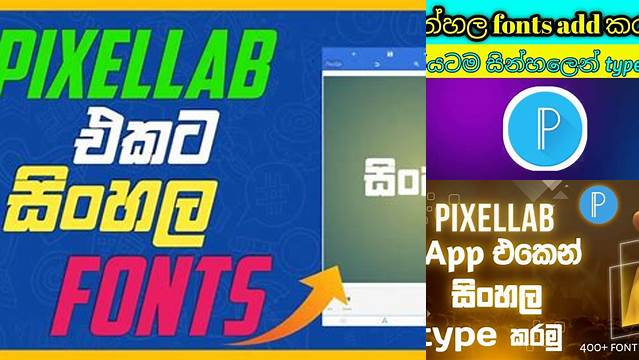
Best Sinhala Fonts For PixelLab: A Comprehensive Guide
Hey guys! So you're looking to jazz up your PixelLab designs with some awesome Sinhala fonts, right? You've come to the right place! Finding the perfect font can seriously elevate your work, making it more eye-catching and professional. In this guide, we'll dive deep into the world of Sinhala fonts compatible with PixelLab, covering everything from where to find them to how to install and use them. Get ready to transform your text game!
H3: Troubleshooting Common Installation Issues
Sometimes, things don't go as smoothly as planned. Don’t worry though, it’s pretty common. Here are a few troubleshooting tips for installing Sinhala fonts in PixelLab. If your font doesn’t appear in PixelLab after installation, double-check to make sure you've installed the correct font files (TTF or OTF). Check that you’ve extracted the font files from the ZIP archive correctly. Make sure you are looking in the right folder for the font files when adding them to PixelLab. Sometimes, restarting your PixelLab app or your device can help. Close the app, reopen it, or even restart your phone. Sometimes, fonts might have compatibility issues. Try different Sinhala fonts to see if the problem lies with a specific font. Make sure your version of PixelLab is up-to-date. Older versions might have font compatibility issues. Double-check the file name of your font and ensure there are no special characters or errors in the naming that could cause problems with the font's availability. If you're still facing issues, there might be issues with PixelLab itself or the font file itself. Consider looking for alternative fonts, or searching for help online on the PixelLab community. With a bit of patience and these troubleshooting tips, you should be able to install your Sinhala fonts in PixelLab without any issues! Keep in mind that the more you work with fonts, the more you’ll get used to the process, and the smoother things will become.
H2: Choosing the Right Sinhala Font: Design Tips and Tricks
Alright, you've got your Sinhala fonts installed in PixelLab, but now comes the fun part: actually choosing the right font for your project! Choosing the right font can be the difference between a design that looks great and a design that's truly amazing. Consider the overall tone and style of your design. Are you going for a modern, clean look, or something more traditional? Some Sinhala fonts have elegant, classic looks while others are more playful and casual. Consider the readability. The readability of the font is super important. Make sure that your text is easy to read, especially at the sizes it will appear in your design. Pay attention to the weight and style of the font. Bold fonts are good for headlines or emphasis, while lighter fonts can be good for body text.
Think about the target audience. Who are you designing for? If you're designing for a specific cultural group, a font that resonates with that audience can be a good idea. Try out different font combinations. Experiment with different Sinhala fonts along with any Latin fonts you might be using to see what combinations look the best. Also, ensure that the fonts are compatible. Check for the availability of different font styles. Some fonts come in multiple styles (bold, italic, regular, etc.), which can be really helpful for different design needs. When working on your designs, adjust the text size and spacing. Play with the letter spacing, line spacing, and text size to make the text visually appealing and easy to read. Make sure that the font is legible on various backgrounds. Check how the font looks against different background colors and images to ensure it’s readable. Try using a contrast that is strong. Keep practicing, and pay attention to what works and what doesn't.
H3: Font Pairing: Combining Sinhala and English Fonts
One of the best design skills is knowing how to pair fonts, especially when working with multiple languages like Sinhala and English. Here are a few tips for combining Sinhala and English fonts in your designs to create visually pleasing and functional typography. First, you want to match the mood. Choose English fonts that have a similar tone and style to your Sinhala fonts. If you have a traditional Sinhala font, consider a classic English font like Times New Roman. For a more modern Sinhala font, you can use a sans-serif English font like Open Sans or Lato. Ensure that both fonts have good readability. This means that they're easy to read at different sizes and on different backgrounds.
Contrast is key. When pairing fonts, use a bit of contrast. Use a bold Sinhala font for headlines and a lighter English font for body text. This will help to create visual interest and make the text easier to scan. Consider font size. Adjust the size of the fonts to create a visual hierarchy. You can use the Sinhala font in a slightly larger size for headlines to give them more emphasis. Make sure to check for any character issues. Some fonts might not display Sinhala characters correctly. Similarly, make sure the English font supports any special characters. Consider the spacing. Pay attention to the letter spacing (kerning) and line spacing (leading) between the text. Make sure that the text is readable and well-spaced. Test the fonts on different backgrounds. Try out your font combination on different backgrounds. You should make sure that the fonts are still legible. Keep it consistent across all your designs to maintain a uniform look. Lastly, use a font that offers multiple weights and styles so that you have more flexibility. By experimenting and practicing, you will get a better sense of what works. Good font pairings can really make a difference, so put in the time to experiment.
H2: Ensuring Sinhala Font Compatibility in PixelLab
So, you’ve got your fonts, installed them, and are ready to go. But, what happens if your Sinhala fonts don’t display correctly in PixelLab? Font compatibility issues can be frustrating, but there are several things you can do to ensure that your Sinhala fonts work flawlessly. One of the primary things you want to look at is the font format. PixelLab typically supports TTF (TrueType Font) and OTF (OpenType Font) formats. If your font is in a different format, it might not work. Make sure that you’ve downloaded the correct font file and that the format is compatible.
Check for font encoding issues. Sinhala fonts, like those in other languages, depend on correct character encoding. Ensure your font is encoded correctly to display Sinhala characters properly. Some fonts might not support all the Sinhala characters. This can happen if the font is not completely designed to include all necessary glyphs. Before investing a lot of time in a font, ensure that it has the complete set of Sinhala characters that you need. You can check this by typing in a few phrases and checking whether all the letters appear correctly. Try using different versions of the font. Sometimes, a newer version of the font might have improved compatibility with the apps. Double-check to ensure that your PixelLab app is up-to-date. Older versions might have problems with newer fonts or might not fully support Sinhala fonts. Clear the cache. Try clearing the app's cache to remove old font information. If the font still isn't working, look for alternative fonts. There might be other Sinhala fonts that are more compatible with PixelLab. You can also try different devices or operating systems. Sometimes, font compatibility depends on the device or OS. With a bit of attention to these details, you can drastically improve your chances of getting your Sinhala fonts to display flawlessly in PixelLab. Patience and a willingness to experiment are your best tools for ensuring font compatibility.
H3: Dealing with Missing or Incorrect Sinhala Characters
So, you've loaded up your Sinhala fonts in PixelLab, but some characters are missing or not showing up correctly. This is a common problem, but there are definitely some solutions. One of the first things to check is the font’s completeness. Not all Sinhala fonts include all the characters. Make sure the font has all the characters you need. Try using a different font. Not all fonts are created equal. If one font has missing characters, try another. Ensure your text is entered correctly. Make sure that the Sinhala characters are typed or pasted correctly. Sometimes, small errors can mess things up. Check for encoding issues. Fonts use encodings to display characters. Ensure the font encoding matches the encoding used by the app and your device. Check the system settings. In your device’s settings, ensure the Sinhala language support is enabled. Clear your app's cache. This helps to remove old font information. Try updating PixelLab. Newer versions usually have improved font support. Try using a different device. If you are using multiple devices, some devices support fonts better than others. If the issue is persistent, you might need to search for updated versions of the font. If the font is still not working, it is possible the font might not be suitable. By trying all the steps, you'll be able to troubleshoot and hopefully get your Sinhala characters showing correctly!
H2: Advanced Tips for PixelLab Users: Font Customization
Alright, you're now a PixelLab pro, and you’re ready to take your design game to the next level! Here are some advanced tips to help you customize your fonts and create even more stunning visuals. One of the first things to do is to adjust your text's color and gradient. PixelLab allows you to set a custom color or create a gradient for your text. This allows you to match your font to the overall design. Experiment with different colors to see what best fits your design. You can also customize the text’s size and spacing. By adjusting the letter spacing (kerning), line spacing (leading), and word spacing, you can make your text more readable and visually appealing. Next is to apply text effects. PixelLab offers a range of text effects, like shadows, strokes, and 3D effects, to make your text stand out. Experiment with these effects to find what works best for your design.
Use masking. PixelLab allows you to mask text with images or shapes. This can create a very cool visual effect, giving your text a unique appearance. Try adding outlines to your text. Outlines can help to make text stand out against any background. Experiment with the thickness and color of the outlines. PixelLab also lets you create text curves. This allows you to shape the text, which is perfect for logos or designs that require text to follow a specific curve. Use blending modes. Blending modes let you merge your text with the background. Experiment with different blending modes to create a unique effect. One of the best things is to add textures. PixelLab lets you add textures to your text. This can create a very realistic look. Create your own styles. Save your favorite text styles so you can easily use them in future projects. By using these advanced tips, you can create unique designs that impress anyone who sees them.
H3: Creating Stunning Typography Effects in PixelLab
Now that you're comfortable with PixelLab, let’s dig into how to create some stunning typography effects. First, let’s focus on the shadow and outline effects. PixelLab lets you add both shadows and outlines to your text. Use shadows to create depth and dimension, and use outlines to make your text pop. Experiment with different colors and thicknesses to get the right look. Next, explore the 3D text features. PixelLab’s 3D text feature lets you add depth and perspective. You can adjust the extrusion depth, perspective angle, and other properties to get the 3D effect. Text masking is also a powerful technique. You can mask your text with images or shapes. This can create unique visual effects, like a text that appears to be filled with an image or texture.
Let's get creative with gradients. Gradients are a great way to add color variation to your text. Experiment with different gradient styles. Use different colors and gradients to make your text more visually interesting. Don't forget about textures. PixelLab lets you add textures to your text. This can give your text a more realistic look, like wood or metal. Experiment with different textures to see what works best for your design. You can also create curved text. PixelLab allows you to curve your text, which is ideal for logos and designs that require text to follow a specific shape. Adjust the curve to make your text fit your design. The best part is to save and reuse styles. Once you create a text effect that you like, save it as a style to use later. By combining all these techniques, you can create beautiful and unique typography effects that will make your designs stand out. Have fun, experiment, and don't be afraid to try new things.
H2: Finding and Utilizing Sinhala Unicode Fonts in PixelLab
Let's delve into a super important topic: Sinhala Unicode fonts. What are they? They are fonts specifically designed to support the Sinhala language using Unicode encoding. This is super important for consistency. Using Unicode fonts guarantees that your text displays correctly across various devices. Without it, you might see gibberish, especially on older devices. So, how do you find and use them in PixelLab? The process is very similar to installing any other font. Download Sinhala Unicode fonts from reputable sources. Websites that specialize in fonts are the best place to start. Usually, they will have a section specifically for Sinhala fonts. Make sure your downloads are in the TTF or OTF formats. Open your PixelLab app. Go to the font section, usually found under the 'A' icon. Select the 'My Fonts' or 'Downloaded' tab and add your downloaded font. Locate the font files in your device’s storage. Select the font and add it to PixelLab. Now, when you add text, choose the Sinhala Unicode font you just installed. You should now see your Sinhala text displayed correctly.
Unicode fonts are designed to be widely compatible. However, make sure the text you are using is also encoded in Unicode. If the text is not encoded properly, it might still not display correctly. You may need to convert your text to Unicode, which is a common task when working with older text formats. Test your design across different devices. Check how the text appears on various devices and platforms. Unicode fonts are designed to display consistently, but it’s always good to check to make sure. With a little knowledge, you can ensure that your Sinhala text is always displayed correctly.
H3: Common Issues with Sinhala Unicode Fonts and Their Solutions
Even with Unicode fonts, there can be problems. Here’s how to troubleshoot them. One common issue is improper character rendering. Ensure your text is encoded in Unicode. Sometimes, old or incompatible encoding can cause display issues. You might need to convert your text to Unicode. Check the font. Not all Sinhala fonts are created equal. Some might be designed with more characters or better rendering than others. Try different fonts. If one font doesn't work, try another. Check for missing glyphs. Make sure the font has all the characters you need. Type in a few phrases and check whether the characters display correctly. It is possible that some font doesn't have the full set of characters. Update PixelLab. Sometimes, updating PixelLab can fix font-related issues. Older versions may not fully support newer fonts. Check your device settings. Make sure your device supports Sinhala and that the correct language settings are enabled. Restart PixelLab. Sometimes, restarting the app can clear up minor glitches. Clear cache. Clearing PixelLab's cache can help resolve display issues. Test on different devices. See if the issue persists on other devices or platforms. It can sometimes be a device-specific problem. If you're still running into issues, consider seeking help from the PixelLab community or online forums. Often, other users have faced similar problems and can provide solutions. By following these tips, you can identify and solve many common problems.
H2: Tips for Using Sinhala Fonts in Different Design Projects
Now that you're equipped with the knowledge of Sinhala fonts for PixelLab, let’s look at how you can use these fonts in different design projects. Consider what kind of projects are you planning to make. Are you creating social media graphics, posters, logos, or something else? For social media graphics, readability is crucial. Choose clear and readable fonts. Short and impactful text is best. On posters, you can use more decorative fonts for headlines. Ensure that the overall design is balanced. For logos, the font must align with your brand's identity. Consider the brand’s personality and values. Make sure that the font is suitable for both online and offline use.
For brochures, use a font that matches the brochure's style. Use fonts that are easy to read. Brochures need a good balance of text and visuals. Always consider the target audience. Knowing your audience helps you pick fonts that resonate with them. Experiment with various styles and layouts. Consider your text's hierarchy. Make sure that the most important text stands out. Always test your designs to see what works and what does not. Save your favorite fonts. Create a library of fonts that you can refer to whenever you are starting a new project. Get feedback on your designs. Ask friends, family, or colleagues for their feedback on your designs. The more you experiment, the more you'll learn!
H3: Designing Social Media Graphics with Sinhala Fonts
Social media is all about eye-catching visuals. Here’s how to design social media graphics using Sinhala fonts. First, ensure that you're using fonts that are easy to read. Avoid overly complex or decorative fonts that might be difficult to understand at small sizes. The font should complement the content. Make your headlines and key information big and clear. Use bold fonts for impact. Keep your text brief and punchy. Use short, attention-grabbing phrases. Use a font that matches your brand identity. Create a consistent look and feel across all of your graphics. Experiment with different layouts and designs. Play with different font sizes, colors, and backgrounds. Ensure that your text stands out against the background. Use contrasting colors and textures. Experiment with the background to see how it affects the text.
Use a visual hierarchy. Make the most important information stand out. Make sure that the text is clear and readable on mobile devices. The majority of social media users view posts on mobile devices. Try different font pairings to enhance your design. Choose fonts that complement each other. Use visuals that are eye-catching. Make sure that your graphics are consistent with your brand. This helps in building your brand recognition. Do not forget to check your graphics on different devices and platforms. Make sure your graphics look good on various screen sizes and social media platforms. Always save your graphics in the correct format. For social media, use formats like JPEG or PNG. By using these techniques, you can make some amazing social media graphics!
H2: Future of Sinhala Fonts in Digital Design: Trends and Predictions
What does the future hold for Sinhala fonts in digital design? The future looks bright, and here are some of the key trends and predictions. One of the biggest trends is greater font diversity. We can expect to see more Sinhala font styles to suit various design needs. Expect to see more integration with AI-powered tools. AI could play a significant role in font design, suggesting font pairings and helping designers. We will also see more focus on multilingual support. Designers are creating more fonts that support multiple languages. There will be improved font accessibility. Designers will make fonts that are easier to read and more inclusive. We'll also see more experimentation with variable fonts. Variable fonts allow designers to adjust font weights, widths, and styles.
We’ll see more font design with a focus on cultural identity. Designers are making fonts that celebrate culture and language. There is a strong focus on design for mobile devices. The growing use of mobile devices will push font design to make fonts look great on screens of all sizes. We will also see the growing role of augmented reality (AR) and virtual reality (VR). AR and VR will present exciting opportunities for the creation and use of 3D fonts. Collaboration will also play a big role. More designers will collaborate to create innovative Sinhala fonts. There is always more demand for customized Sinhala fonts. This is important because this means that designers and businesses need to design tailored fonts that reflect their unique brand. As the demand for digital content continues to grow, the role of Sinhala fonts will continue to expand. Experimenting and staying current is key for designers in the field.
H3: Emerging Font Design Techniques and Their Impact on Sinhala Fonts
Let’s dive into emerging font design techniques and their impact on Sinhala fonts. One emerging trend is the rise of variable fonts. Variable fonts allow for dynamic customization, letting designers create fonts that adapt. This opens up new possibilities for Sinhala fonts to fit various sizes. The increased focus on inclusivity is another key trend. Designers are creating more accessible and inclusive fonts, and we can expect more Sinhala fonts to be designed with different accessibility needs in mind. AI-powered font design is gaining momentum. AI can help designers with font creation and pairing, which can speed up the design process. We’ll see more use of 3D fonts. 3D fonts are becoming popular, especially in AR and VR applications. Expect to see more Sinhala fonts designed for 3D display. There's also an increasing focus on motion graphics. Motion graphics are becoming central in digital media. Sinhala fonts will need to be adaptable to these demands.
Another key trend is the personalization of fonts. Designers will focus on creating custom fonts for individual brands. The growth of micro-typography is essential. Micro-typography focuses on the details of font design, like kerning and spacing. Sinhala fonts can benefit from careful attention to micro-typography. There's a focus on the role of cultural context. Sinhala fonts will need to reflect the cultural values and historical design of the language. As technology advances, Sinhala fonts will evolve to meet the needs of digital design. Designers who stay ahead of these trends will be best-equipped to create innovative Sinhala fonts. Be ready for changes and be open to new techniques.
H2: Resources and Tools for Sinhala Font Designers and Users
For designers and users alike, having access to the right resources is essential for working with Sinhala fonts. Here’s a comprehensive guide to the best resources and tools available. If you are a font designer, start with font creation software. Programs such as Glyphs, FontLab, and Adobe Font Folio are great for creating and editing fonts. For users, there are websites that offer fonts. Websites like Google Fonts, Font Squirrel, and DaFont provide access to a wide variety of Sinhala fonts. Make sure you choose the right fonts. Select fonts that meet your needs. Check for licensing terms, font styles, and character support. Another thing you need is a font management tool. These tools help you organize, install, and manage your fonts on your computer. Font managers are also useful for managing different font versions and for activating/deactivating fonts.
If you need help with typography, you can find many typography guides. These guides offer helpful tips, like typography principles, best practices, and font pairing. If you’re having issues with Unicode, you should find a good Unicode editor. These tools can help you to edit, convert, and manage Unicode characters. Check the forums. Join design forums to connect with other designers and font users. Sharing experiences and knowledge is very important. Take courses. Enroll in design courses, whether online or in person. You can learn new skills and techniques to enhance your design work. Stay updated with the latest trends. Follow design blogs and websites that cover trends in font design. This helps you stay informed. Experiment with design tools. Many different design tools are available for you. Adobe Photoshop, Illustrator, and Canva are some of the popular design tools. By making use of all the resources, you can enhance your design work with Sinhala fonts.
H3: Essential Software and Websites for Sinhala Font Management
Managing Sinhala fonts can be made easy with the right software and websites. Here are some essential tools and resources to manage your fonts. First, we will look at the font management software. Programs like FontBase and NexusFont can help you organize, preview, and activate your fonts. This is especially handy when you're dealing with many fonts. Use font managers to install and manage fonts. This will help you avoid conflicts and maintain organized font libraries. Next is font editors. FontForge is a free, open-source font editor you can use to edit and create fonts. These tools are used for customizing Sinhala fonts. Now let's look at the font websites. Google Fonts, Font Squirrel, and DaFont offer a great selection of Sinhala fonts. You can find a wide variety of font styles and licenses. Make sure that you download fonts from reputable sites. Check the licenses. Before downloading, make sure the font license matches your usage. Explore design blogs and websites. Follow design blogs and websites that offer font design tips and resources. If you need to troubleshoot, visit online design communities to find answers. By making use of the right software and resources, you can effectively manage Sinhala fonts. Choose the tools that fit your needs. Using the software and websites will help make your font management process much easier.